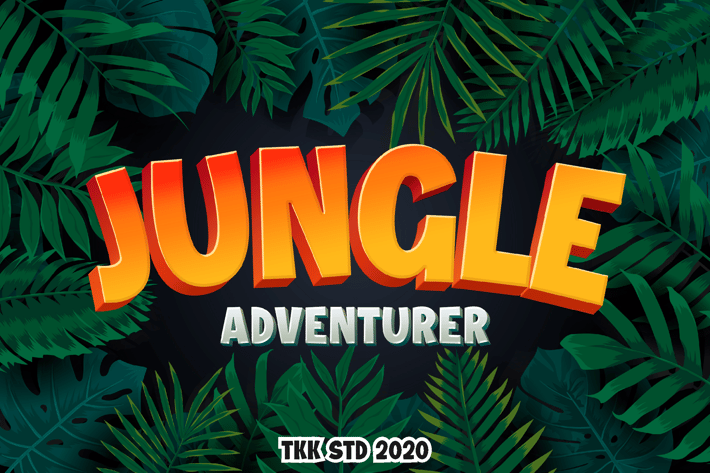
Jungle Adventurer - Gaming font
Jungle Adventurer - All Caps Gaming Font
Jungle Adventurer is a bold, playful display typeface with bouncy shapes and cartoon-style energy, inspired by leafy jungles, animal stories, and childlike exploration. Featuring rounded corners, organic flow, and soft terminal shapes, it mimics natural movement and friendly tone. This font brings instant character to educational designs, eco-campaigns, and adventurous games.
Its chunky structure and energetic personality make it especially effective in digital learning apps, zoo-themed branding, kids’ books, or signage for parks and nature events. Jungle Adventurer blends wild charm with strong readability.
From interactive zoo maps to classroom posters, Jungle Adventurer helps you tell fun, engaging stories with visual confidence. Whether you're working on a gaming UI, animal-themed branding, playful social media post, or outdoor adventure book cover, this font sparks curiosity and childhood nostalgia. It’s perfect for designers needing a display font that radiates joy, energy, and outdoor spirit.
Key Features :
✦ Playful & Readable
- Bouncy baseline with consistent rhythm
- Rounded, high-contrast letterforms for soft yet punchy impact
- Suitable for small screens and big banners alike
✦ Versatile for Kids & Nature Branding
- Ideal for posters, zoo events, kids apps, nature-themed YouTube thumbnails
- Inspires curiosity, education, and fun exploration
- Works for both digital and print formats